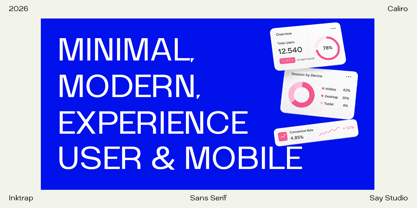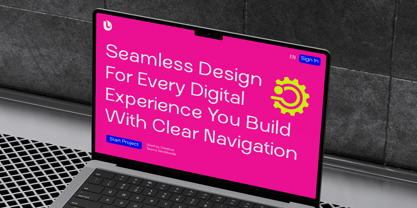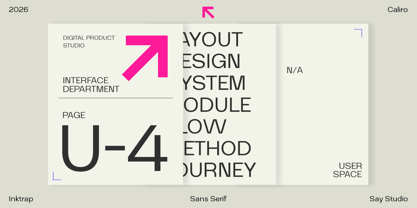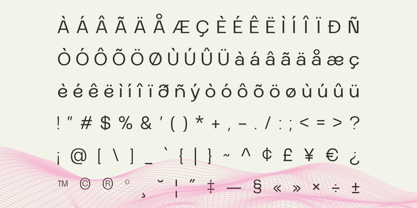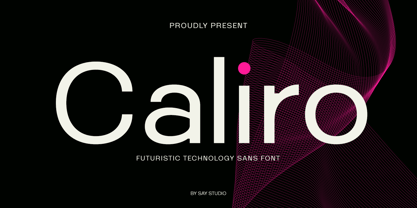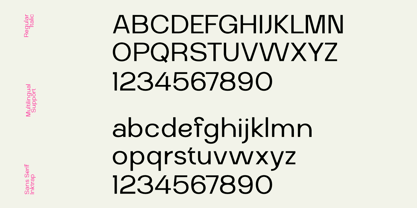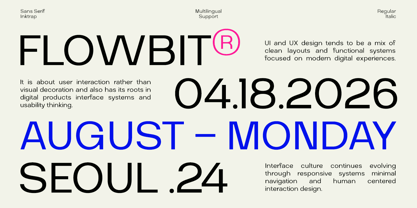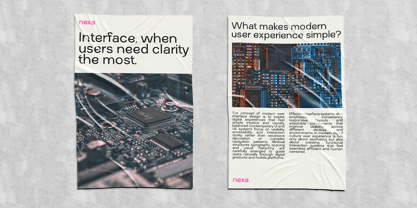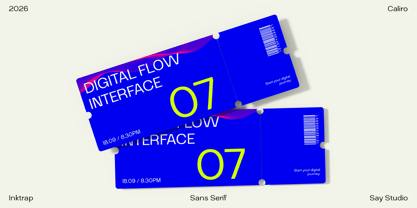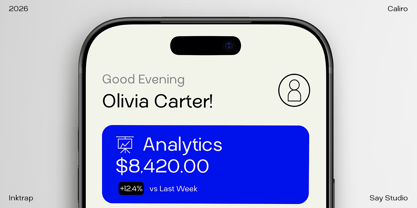
Caliro
The Caliro Font Family was designed by Mussyayin and published by Say Studio. Caliro contains 2 styles and family package options. More about this family
Caliro is a futuristic technology sans serif font crafted for modern digital aesthetics, where clean geometry meets sleek precision. Designed with a contemporary inktrap-inspired structure, Caliro delivers a sharp, minimal, and highly functional personality that feels right at home in UI/UX projects, startup branding, tech presentations, dashboards, mobile interfaces, and visionary editorial layouts. Its elegant proportions and modern construction make every headline feel premium, intelligent, and forward-thinking.
Built for designers who want versatility without sacrificing style, Caliro balances futuristic sophistication with practical readability. Whether you're creating app mockups, SaaS branding, fintech campaigns, product showcases, corporate identity systems, interface presentations, or minimalist posters, this typeface adapts effortlessly. The clean sans-serif skeleton combined with subtle techno cues makes it ideal for brands that want to communicate innovation, clarity, and modern confidence.
Caliro includes multilingual support, uppercase and lowercase characters, numerals, punctuation, and stylistic flexibility that works across both digital and print media. From startup logos to dashboard interfaces and modern editorial branding, Caliro is the perfect choice for projects that demand a premium futuristic sans with strong usability and clean visual impact.
- Regular & Italic Style
- Uppercase & Lowercase
- Multilingual Support
- Number & Punctuation
- Inktrap style